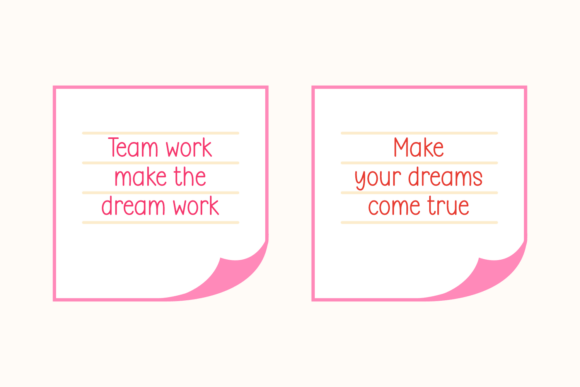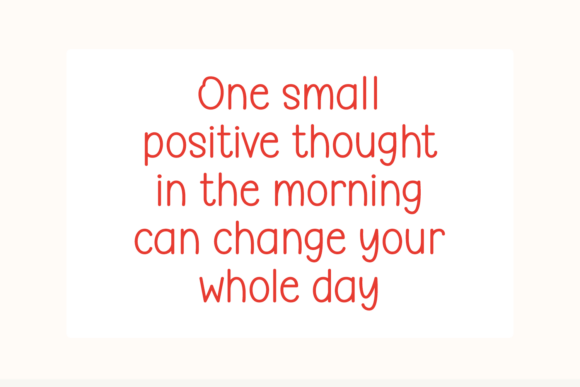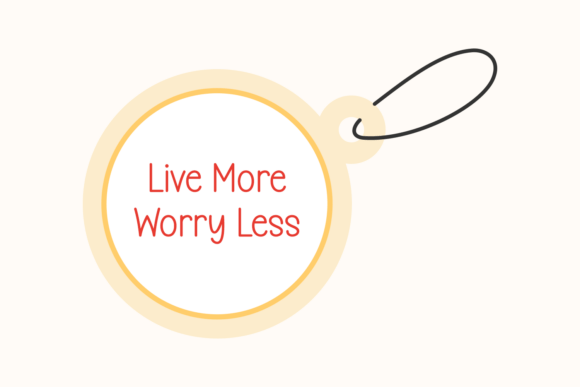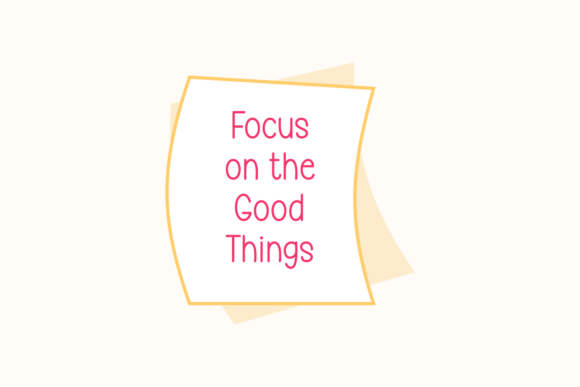
Introducing Friendly Teacher Font: Add a Personal Touch to Your Creations
Are you a designer, crafty person, or educator looking for a font that can add a personal touch to your notes, quotes, social media posts, books, or school projects? Look no further than the Friendly Teacher Font, a delightful handwritten font that exudes a fresh, down-to-earth charm. In this article, we’ll explore the features and benefits of this lovely font and how it can elevate your creative projects.
Handwritten fonts have a unique appeal that digital fonts often lack. They convey a sense of personality, warmth, and approachability, making them perfect for projects that require a human touch. The Friendly Teacher Font is no exception. With its cute and playful design, it’s sure to capture the hearts of your audience and make your creations stand out.
Features of Friendly Teacher Font
Crafted with care, the Friendly Teacher Font embodies the whimsicality of handwritten words and the engaging allure of a personal touch. Here are some of its key features:
- Handwritten design: The font boasts a beautiful, handwritten design that’s perfect for adding a personal touch to your projects.
- Fresh and down-to-earth charm: The font’s unique design gives it a fresh and down-to-earth charm that’s sure to appeal to a wide range of audiences.
- Cute appeal: The font’s cute design makes it perfect for projects that require a playful and approachable tone.
- Versatile: The Friendly Teacher Font is versatile and can be used for a wide range of projects, from notes and quotes to social media posts, books, and school projects.
Uses of Friendly Teacher Font
The Friendly Teacher Font is perfect for a variety of projects, including:
- Notes and quotes: Add a personal touch to your notes and quotes with this lovely font.
- Social media posts: Make your social media posts stand out with the Friendly Teacher Font’s cute and playful design.
- Books: Use the font to add a personal touch to your books, whether they’re fiction, non-fiction, or children’s books.
- School projects: The font is perfect for school projects, adding a playful and engaging touch to assignments and presentations.
Benefits of Using Friendly Teacher Font
Using the Friendly Teacher Font can bring several benefits to your creative projects, including:
- Unique and personalized touch: The font adds a unique and personalized touch to your projects, setting them apart from others.
- Emotional connection: The font’s handwritten design can help create an emotional connection with your audience, making your projects more relatable and engaging.
- Flexibility: The font’s versatility makes it perfect for a wide range of projects, from digital to print.
Tips for Using Friendly Teacher Font
Here are some tips for using the Friendly Teacher Font effectively:
- Pair with other fonts: Experiment with pairing the Friendly Teacher Font with other fonts to create a unique and visually appealing design.
- Use in headings and titles: Use the font in headings and titles to add a personal touch and make your projects stand out.
- Experiment with colors: Experiment with different colors to find the perfect combination that complements the font’s design.
| Font Name | Friendly Teacher Font |
| Author | Arnika Studio |
In conclusion, the Friendly Teacher Font is a delightful handwritten font that can add a personal touch to your notes, quotes, social media posts, books, or school projects. With its cute appeal, fresh and down-to-earth charm, and versatility, it’s perfect for designers, crafters, and educators looking for a font that can elevate their creative projects. So why not give it a try and see how it can bring a playful warmth to your creations?